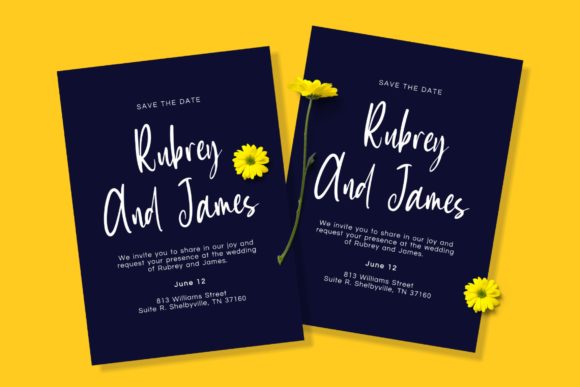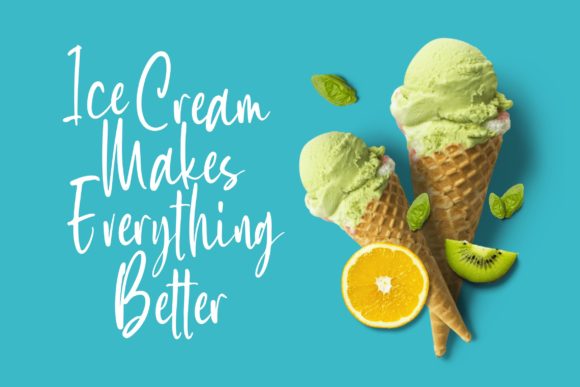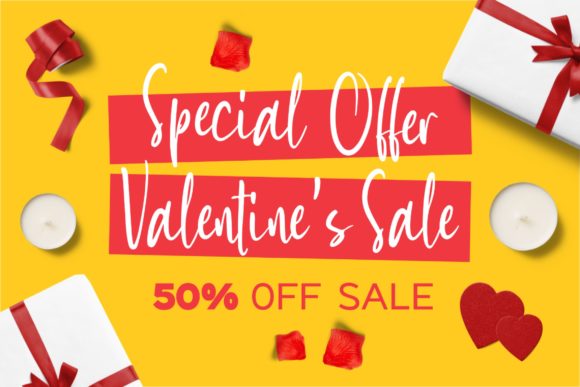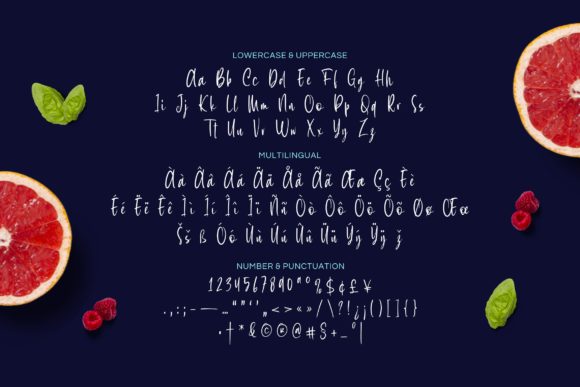
Introduction to Helguer Font Font
Fonts play a crucial role in design, and the Helguer Font font is a typeface that brings both character and versatility to any project. Whether you’re working on a branding project, a website, or a print design, the Helguer Font font offers a unique style that can elevate your work.
Helguer is a stylish and casual handwritten font.
Fall in love with it and bring your projects to the highest levels .
Key Features of Helguer Font Font
Why Choose Helguer Font Font?
The Helguer Font font is more than just a typeface – it’s a design tool that helps you communicate your message with style and clarity. Its unique character set and versatile design make it suitable for a wide range of applications, from elegant invitations to bold headlines.
With its carefully crafted letterforms and balanced proportions, the Helguer Font font ensures readability and visual appeal across all mediums.
What makes Helguer Font font special?
The Helguer Font font stands out with its unique design, exceptional readability, and versatility across various design applications.